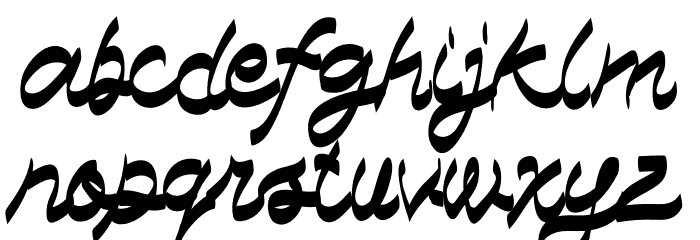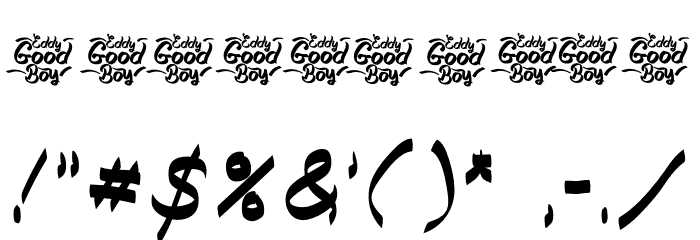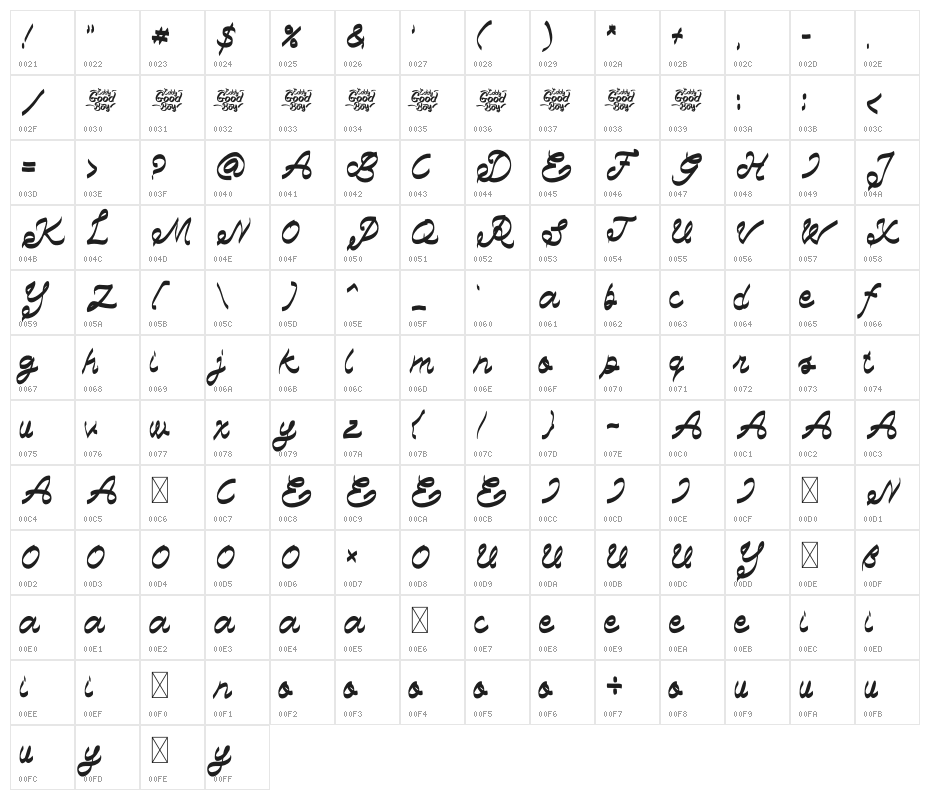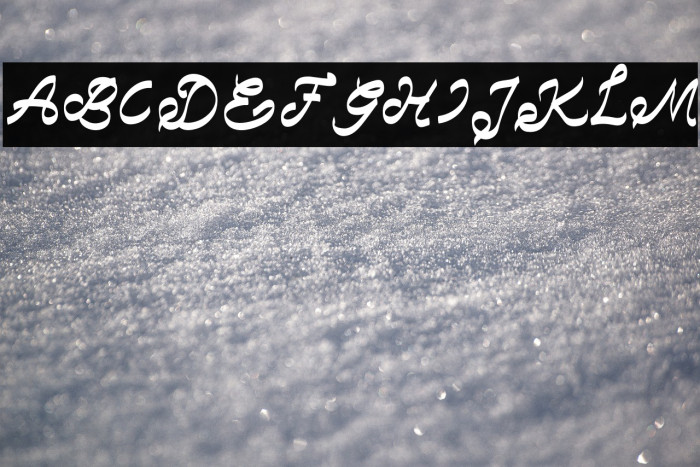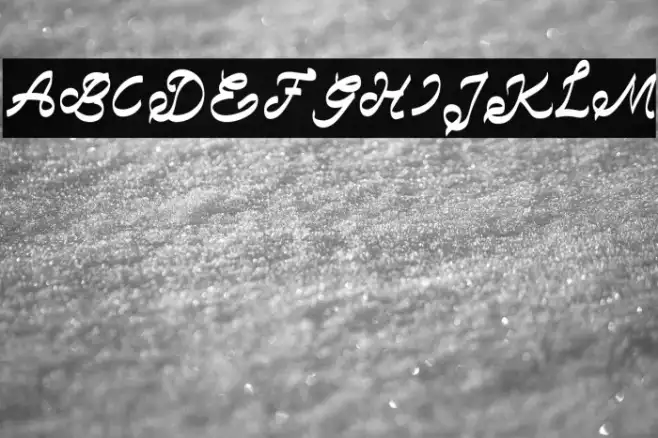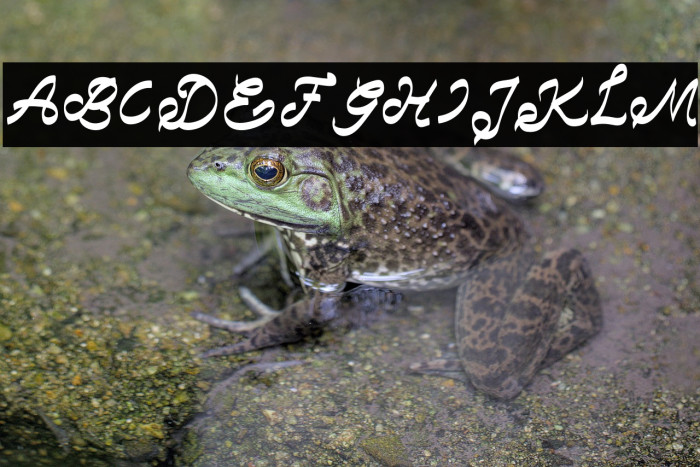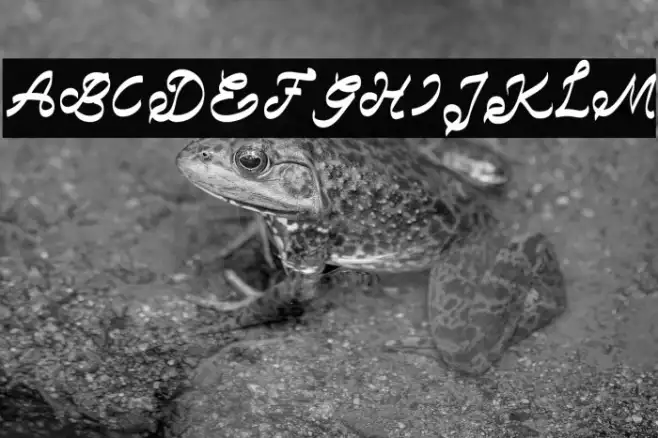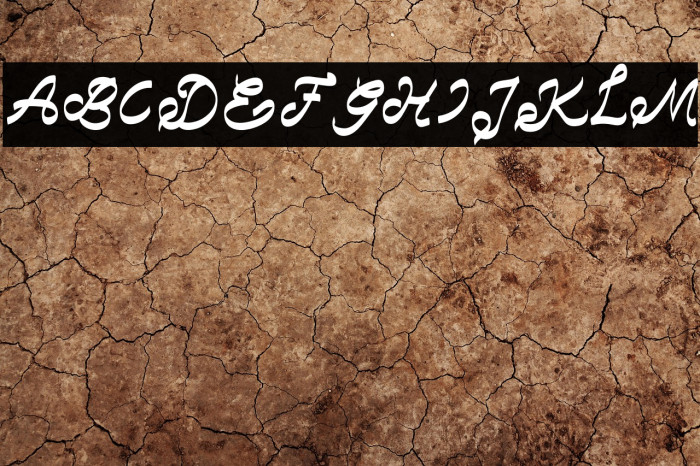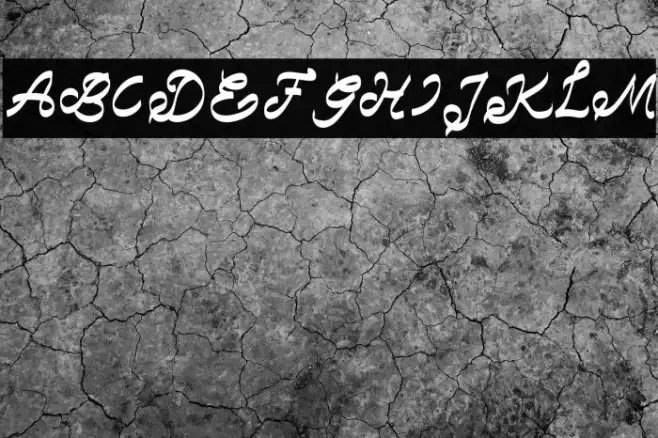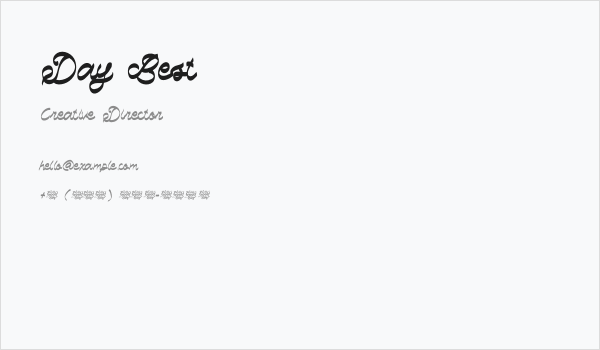
Day Best Font
This font features a dynamic and flowing script style, characterized by its elegant and cursive letterforms. The uppercase letters exhibit a graceful, sweeping motion, while the lowercase letters maintain a consistent fluidity, creating a harmonious balance. The font's design includes distinctive loops and swashes, adding a touch of sophistication and flair. The numerals and special characters are crafted with the same attention to detail, ensuring a cohesive appearance across all glyphs. This font's overall aesthetic is both stylish and versatile, making it suitable for a variety of creative applications.
A dynamic and elegant script font with flowing, cursive letterforms.
- Font: Day Best
- Proposed Projects: Ideal for wedding invitations, branding, greeting cards, and elegant packaging designs.
- Category: Script
- Overall Style: Elegant
- Use Case: Logos, Invitations, Branding